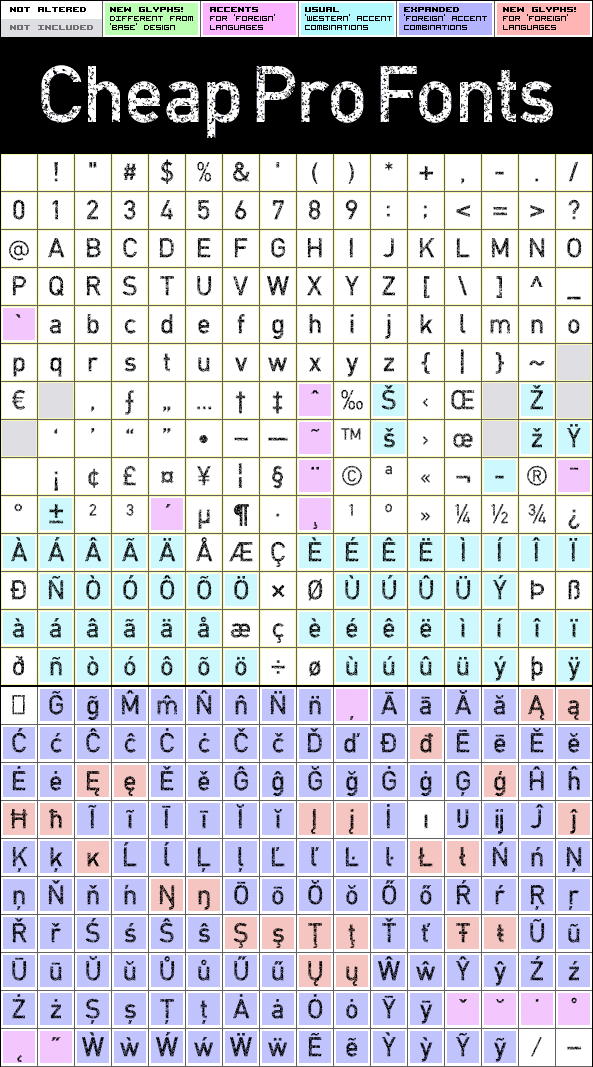
DINfun Pro Distressed
DINfun Pro Distressed by Roger S. Nelsson
Another grunge treatment to my variant of the classic DIN 1451 Mittelschrift. Rough. Worn. Weary. Gritty. Deteriorated. Uneven. Scraped. Eroded. Very detailed. And perfect for that tough look ;)
DINfun Pro Distressed is a professionally reworked font that contains an extended character set for setting text in 65 languages requiring more than the basic A-Z!